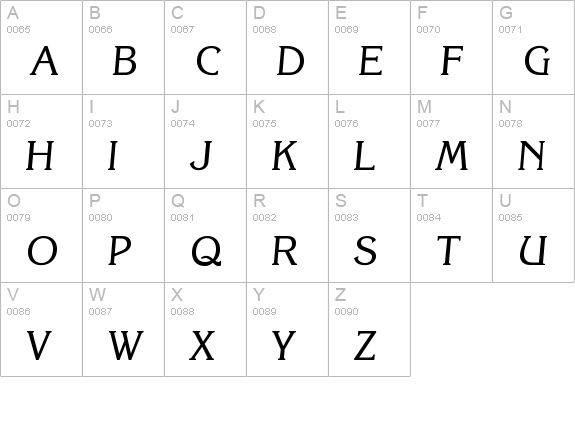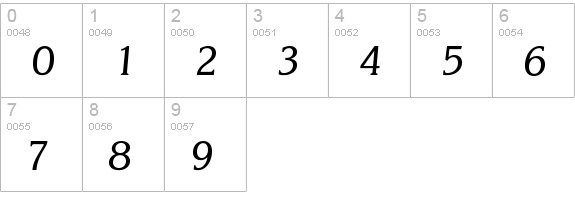
Korinth-RegularIta is a sleek and modern italic font that exudes sophistication and elegance. With its clean lines and stylish curves, this font is perfect for adding a touch of class to any design project. Whether you're working on invitations, branding materials, or editorial layouts, Korinth-RegularIta will elevate your work to the next level. The best part? Korinth-RegularIta is available for free download at FontsMarket.com. That's right, you can enhance your designs with this beautiful font without having to spend a dime. So why wait? Download Korinth-RegularIta today and start creating stunning designs that will leave a lasting impression.